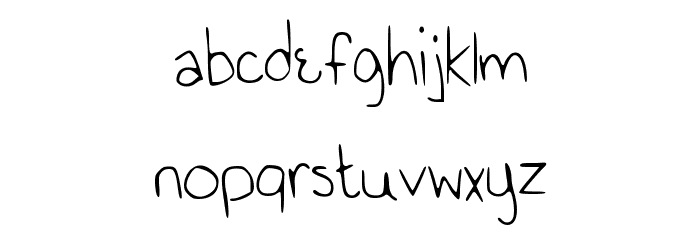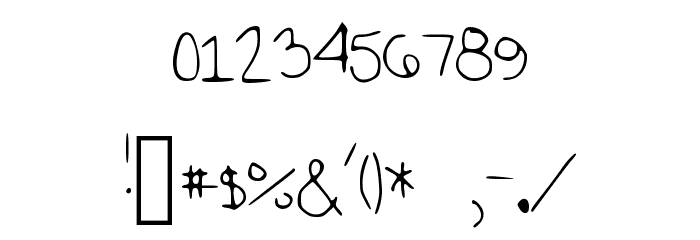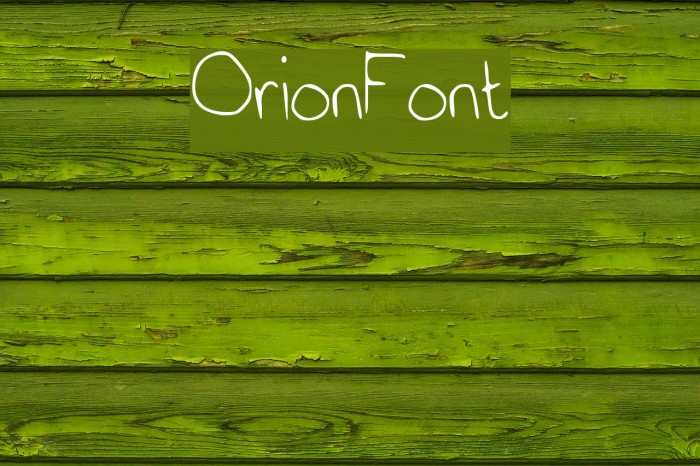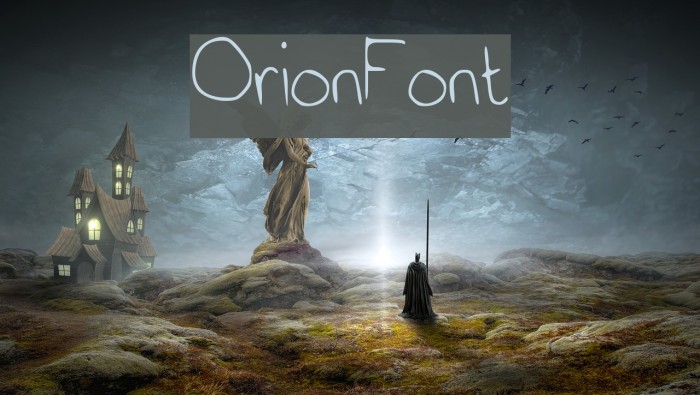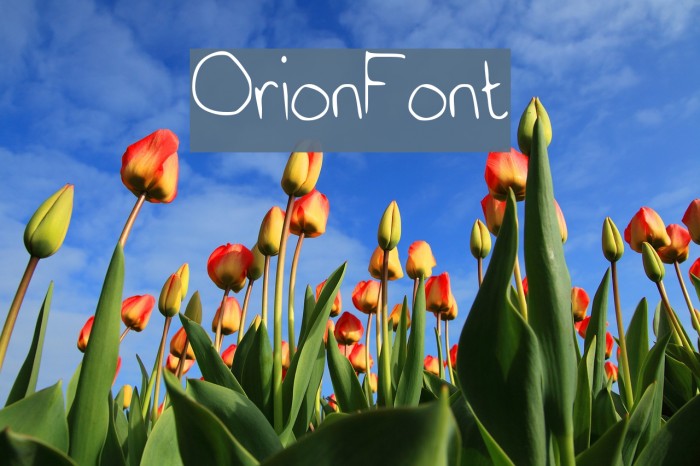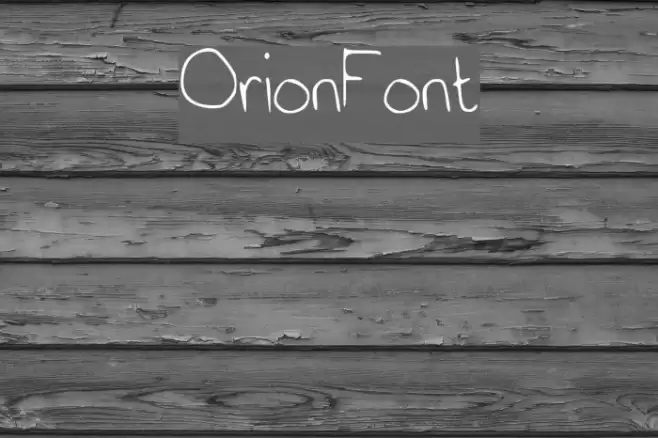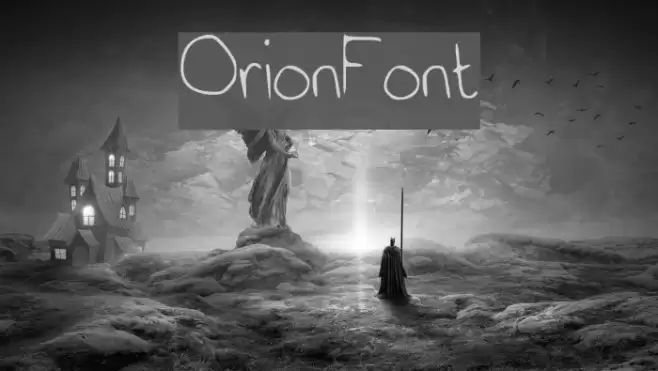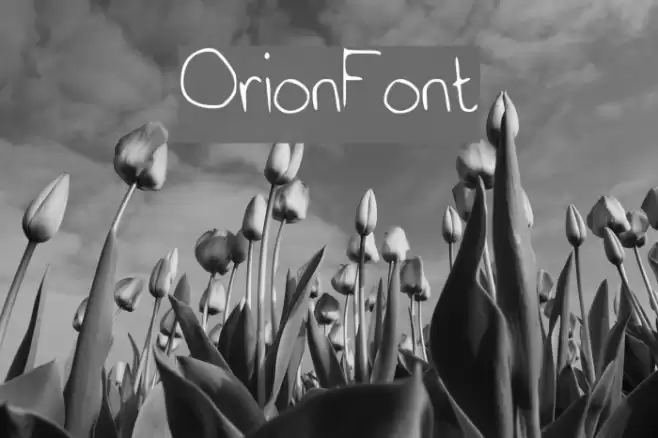
OrionFont Font
This font features a playful and whimsical handwritten style, characterized by its irregular and slightly quirky letterforms. The strokes are uneven, giving it a casual and informal appearance. The uppercase letters are bold and prominent, while the lowercase letters maintain a consistent flow with a slight slant, adding to the font's dynamic nature. The numbers are clear and legible, matching the playful style of the alphabet. Special characters are creatively designed, maintaining the overall theme of the font. This font is ideal for projects that require a personal touch or a fun, lighthearted vibe.
A playful, handwritten font with irregular, quirky letterforms.
- Proposed Projects: Ideal for greeting cards, children's books, playful branding, and casual invitations.
- Overall Style: Casual, Playful
- Use Case: Headlines, Informal text, Creative projects